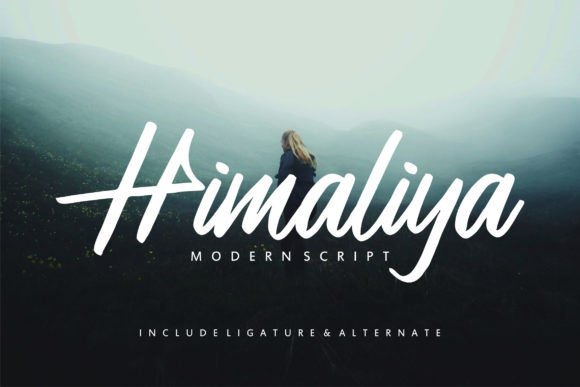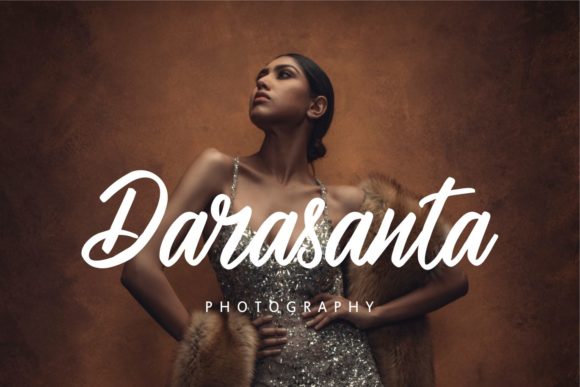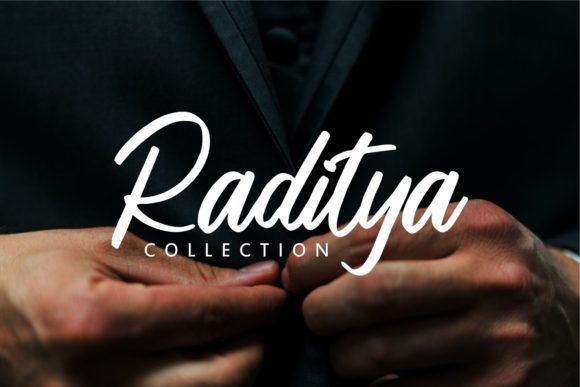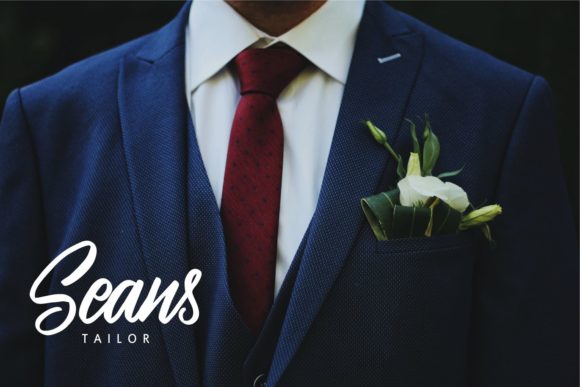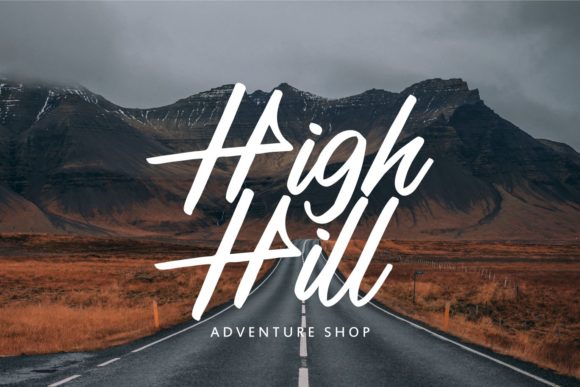
HomeScript FontsHimaliya Font Script Fonts Himaliya Font FacebookXPinterestWhatsApp Himaliya Font Poster 2 Himaliya Font Poster 3 Himaliya Font Poster 4 Himaliya Font Poster 5 About Himaliya Font Himaliya is a modern and sleek handwritten font with a smart twist. Get inspired by its contemporary charm. DOWNLOAD ON CREATIVE FABRICAThis font is sold and delivered by Creative Fabrica. Font Canyon may earn a commission if you buy through this link. People also explored Palmark Font Themoon Font Klast Font Fahrimes Font Living Love Font Chintya Font Starko Font Hamburg Font Diva Forever Font 312 0 TagsHimaliya Font Previous articleSantoy FontNext articleZeBrush Font LEAVE A REPLY Cancel reply Comment: Please enter your comment! Name:* Please enter your name here Email:* You have entered an incorrect email address! Please enter your email address here Website: Save my name, email, and website in this browser for the next time I comment. Personal Use Free Kaysan Personal Use Free Read more about this font Dealisya Personal Use Free Read more about this font The Moshbusther Personal Use Free Read more about this font City Tour Personal Use Free Read more about this font BLOG Best Fonts for T-Shirt Design – Top 2025 Picks In 2025, t-shirt design has become more than just fashion—it's a form of self-expression. Whether you're... How to Install and Use Fonts on Windows, macOS, and Web Projects Transform Your Website: Elevate Your Typography with 7 Best Web Font Generators Exploring Font Trends